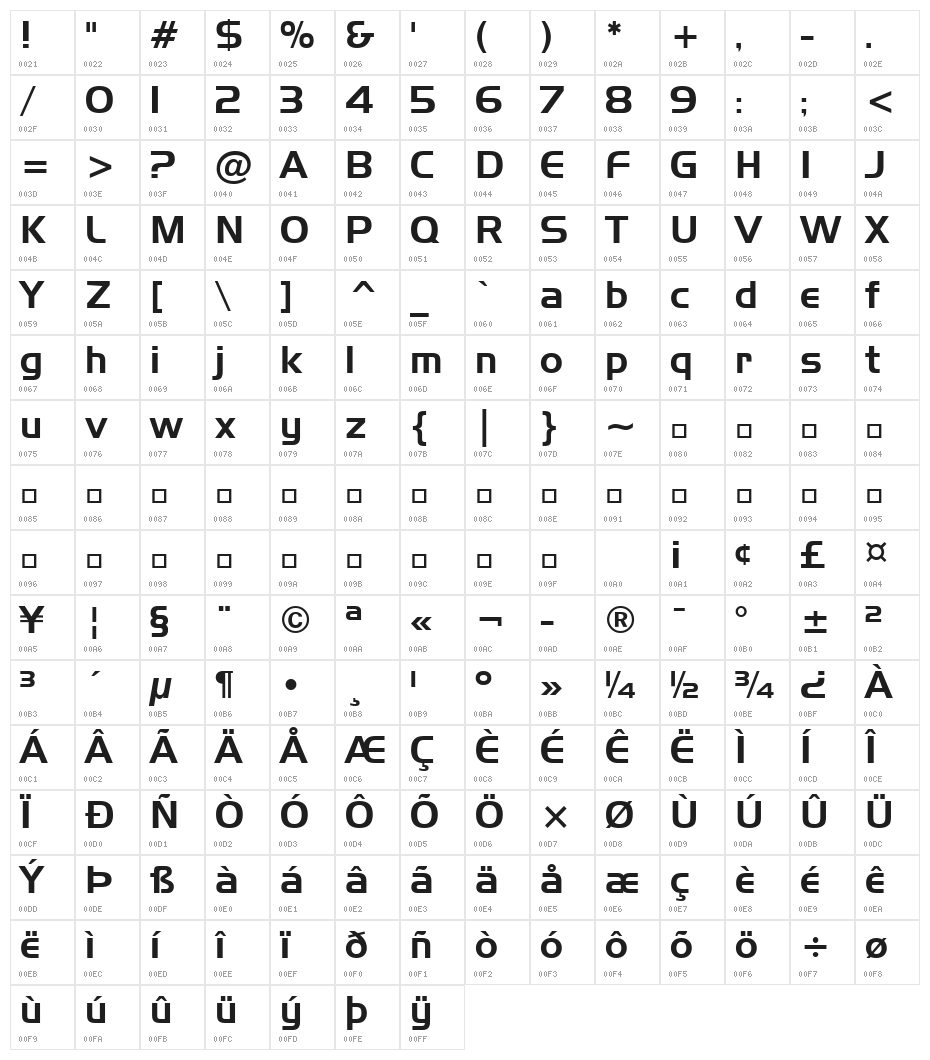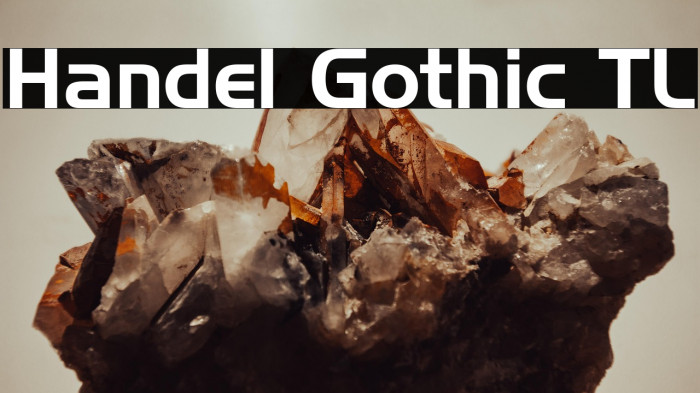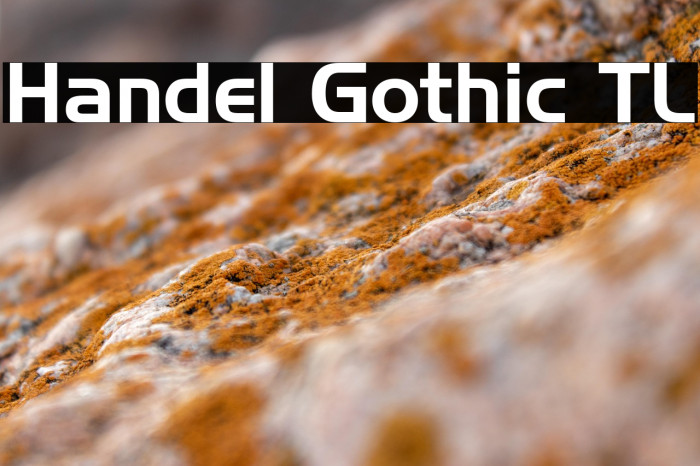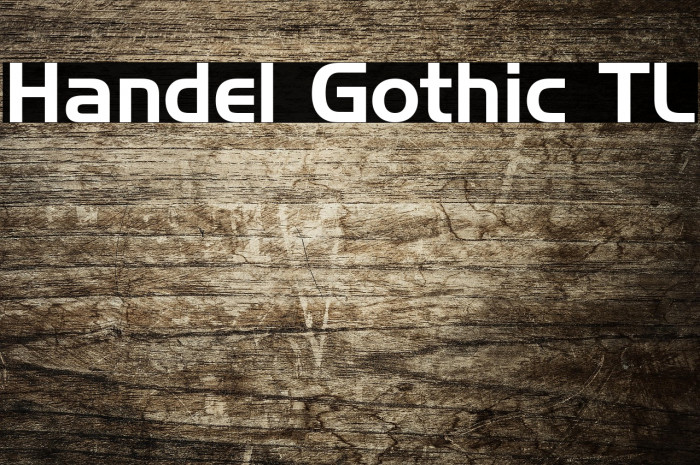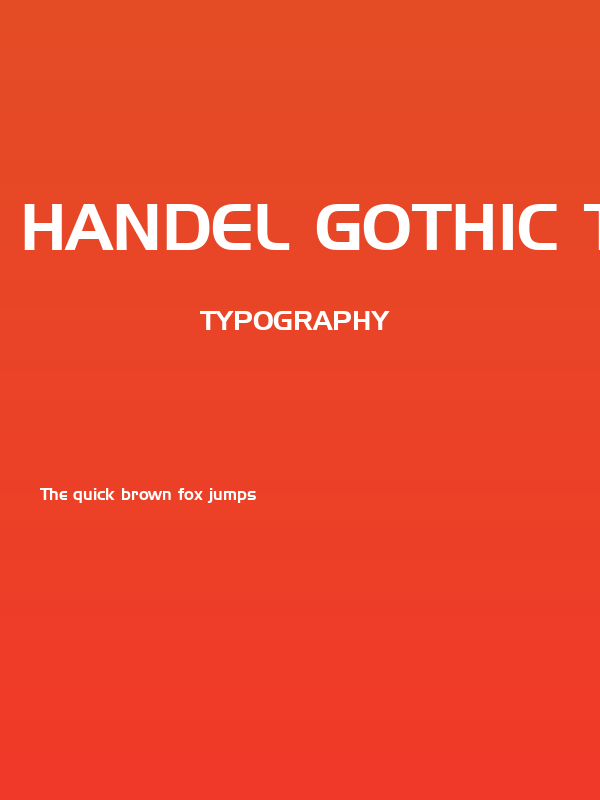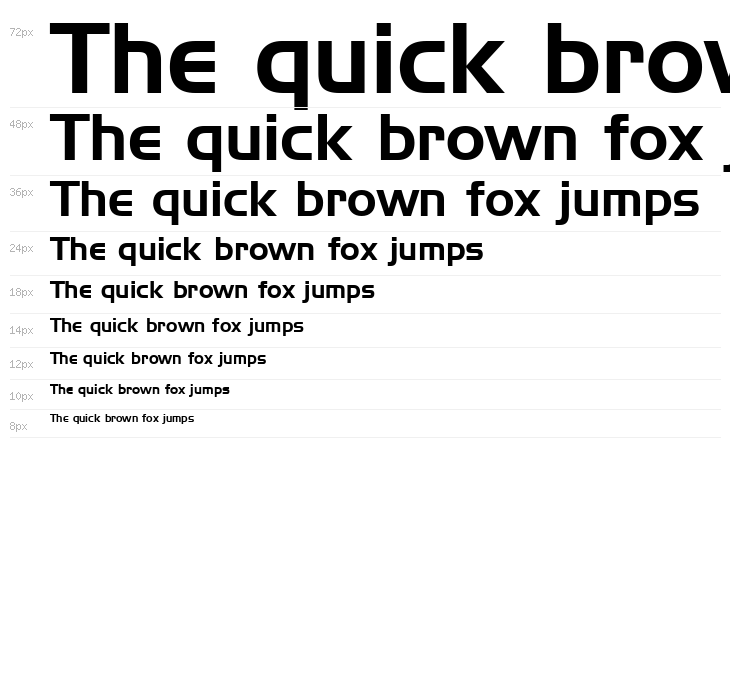
Handel Gothic TL Font
Handel Gothic TL Description
This font features a sleek, modern design with a futuristic flair. Its geometric shapes and clean lines give it a distinctive, tech-inspired look. The characters are well-balanced with a consistent stroke width, providing a uniform appearance across both uppercase and lowercase letters. The numerals and special characters maintain the same aesthetic, ensuring a cohesive style throughout. Its bold presence makes it ideal for attention-grabbing headlines or branding that requires a contemporary edge.
Overall StyleModern
Use CaseHeadlines, Logos
Proposed ProjectsIdeal for technology branding, sci-fi themed designs, and modern advertising campaigns.